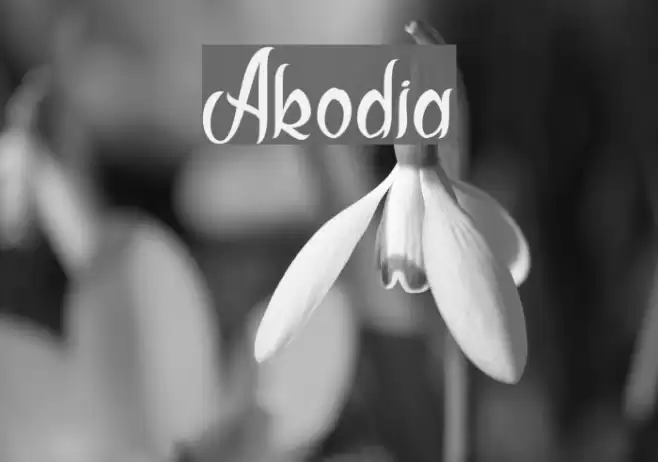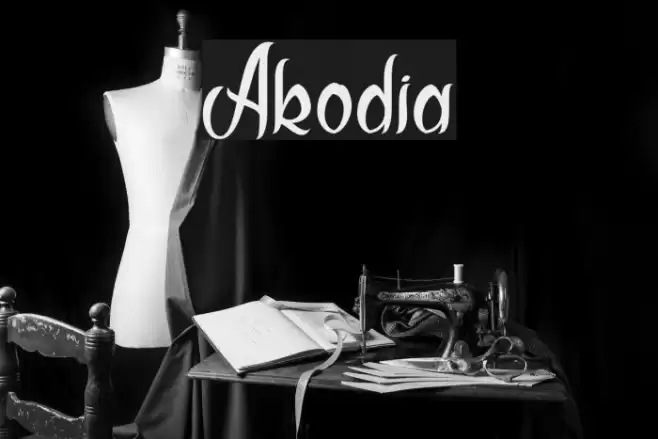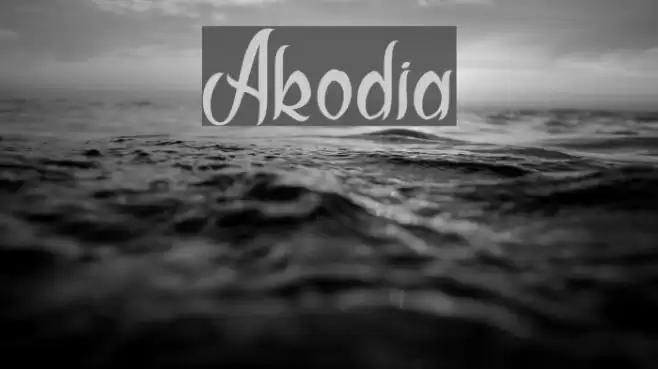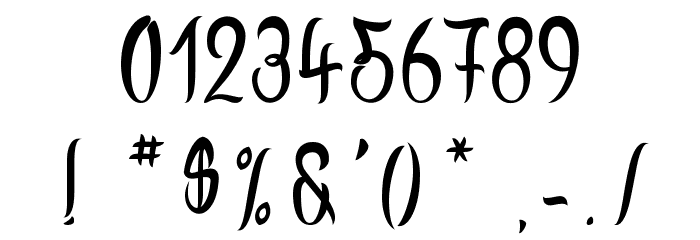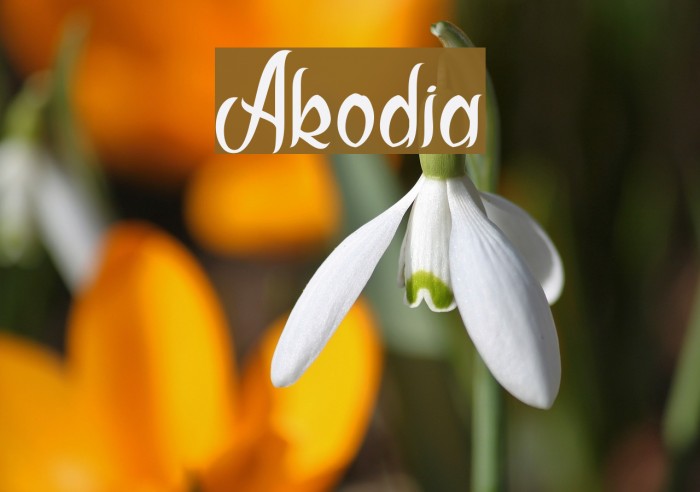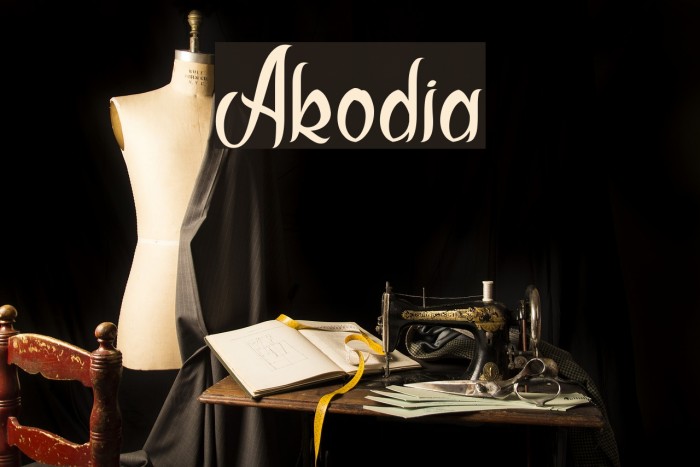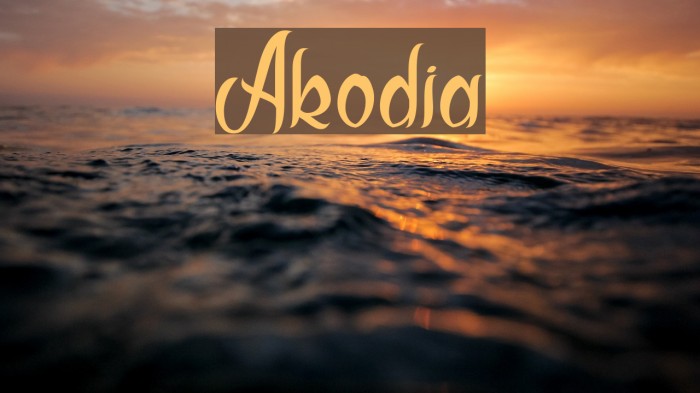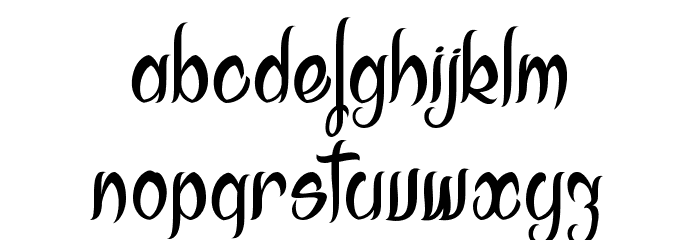
Akodia Font
Akodia Description
This font features a unique and artistic style with a calligraphic influence. The uppercase letters are characterized by their flowing, curved lines and decorative flourishes, giving them a dynamic and elegant appearance. The lowercase letters maintain a similar style, with smooth curves and a slightly whimsical touch. The numbers are consistent with the overall design, featuring the same fluidity and artistic flair. Special characters are creatively integrated, maintaining the font's cohesive look. This font is ideal for projects that require a touch of elegance and creativity, such as invitations, branding, and artistic designs.
An artistic, calligraphic font with flowing lines and decorative flourishes from Uncategorized fonts.
- Proposed Projects: Ideal for invitations, branding, artistic designs, and creative projects.
- Use Case: Headlines, Logos, Artistic designs